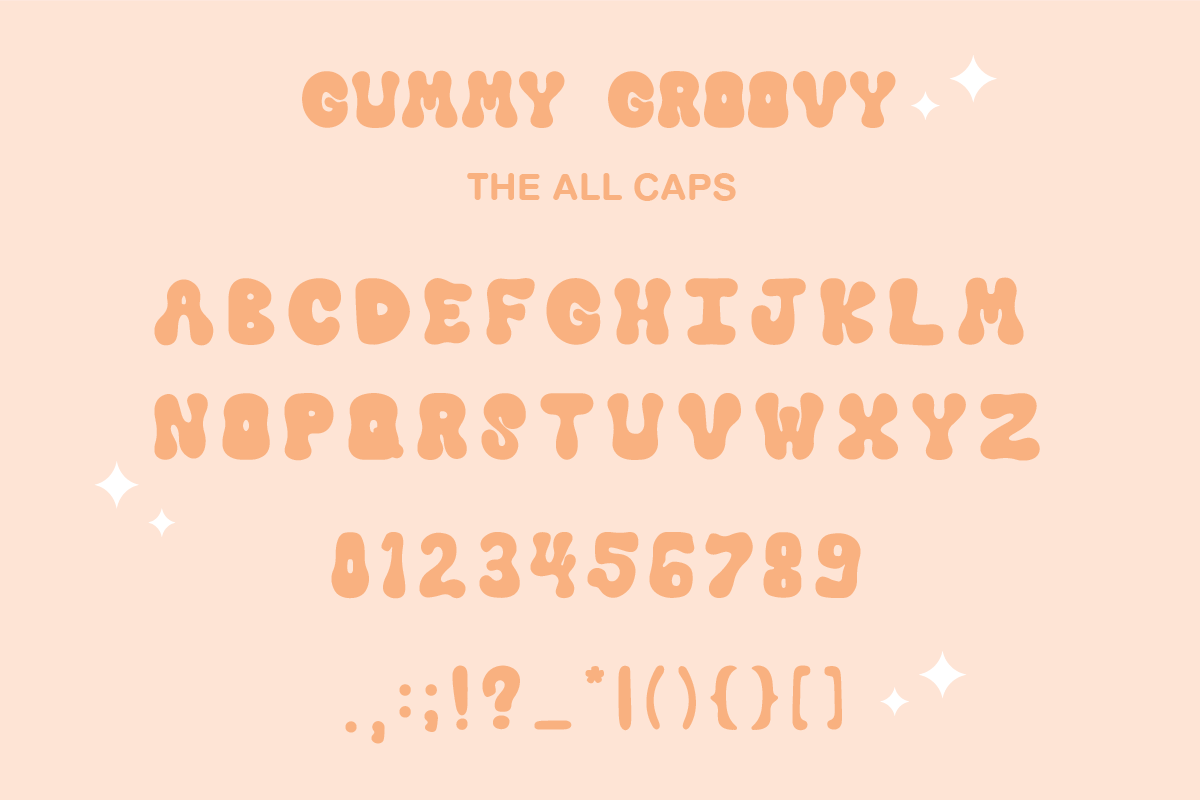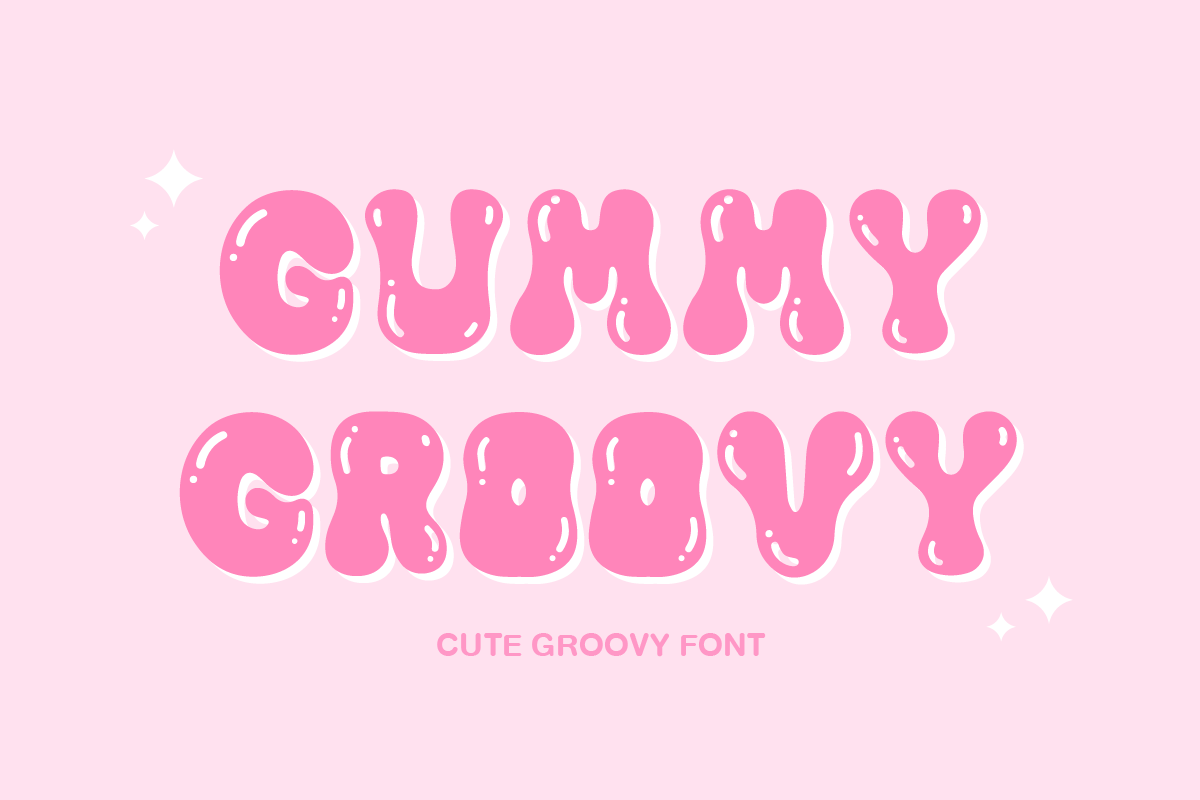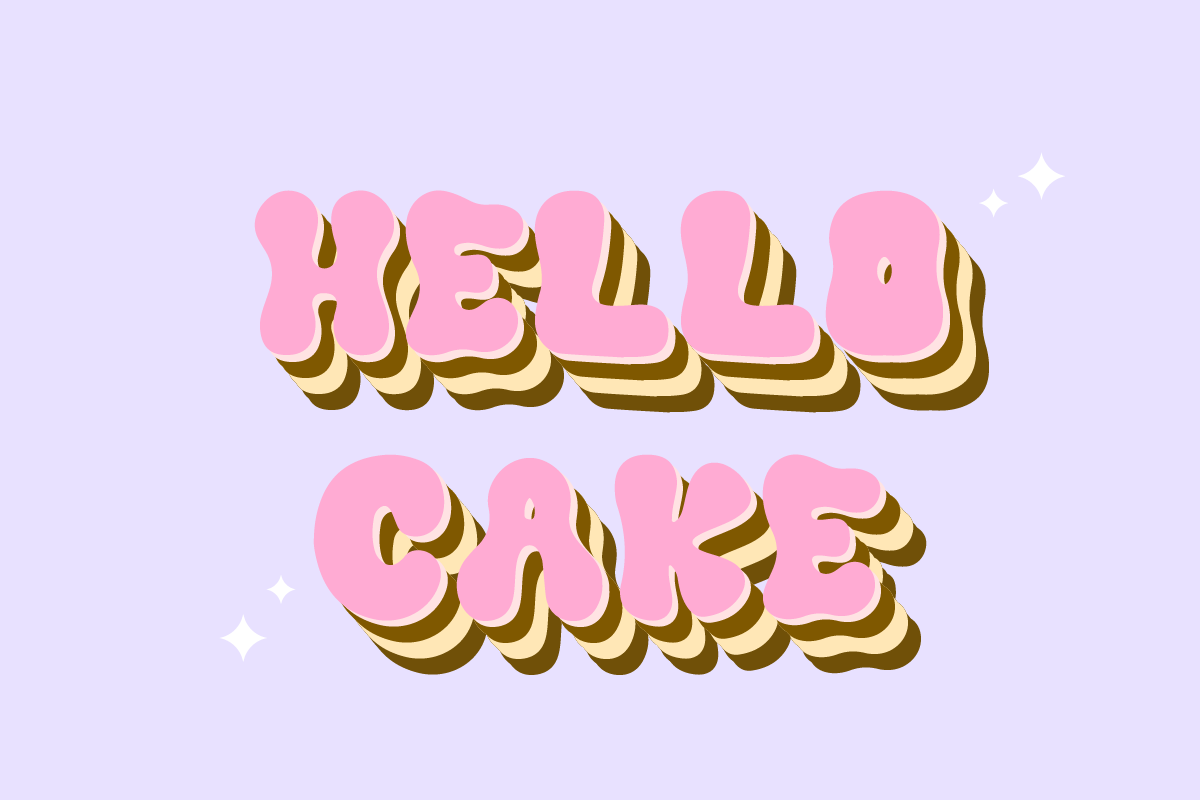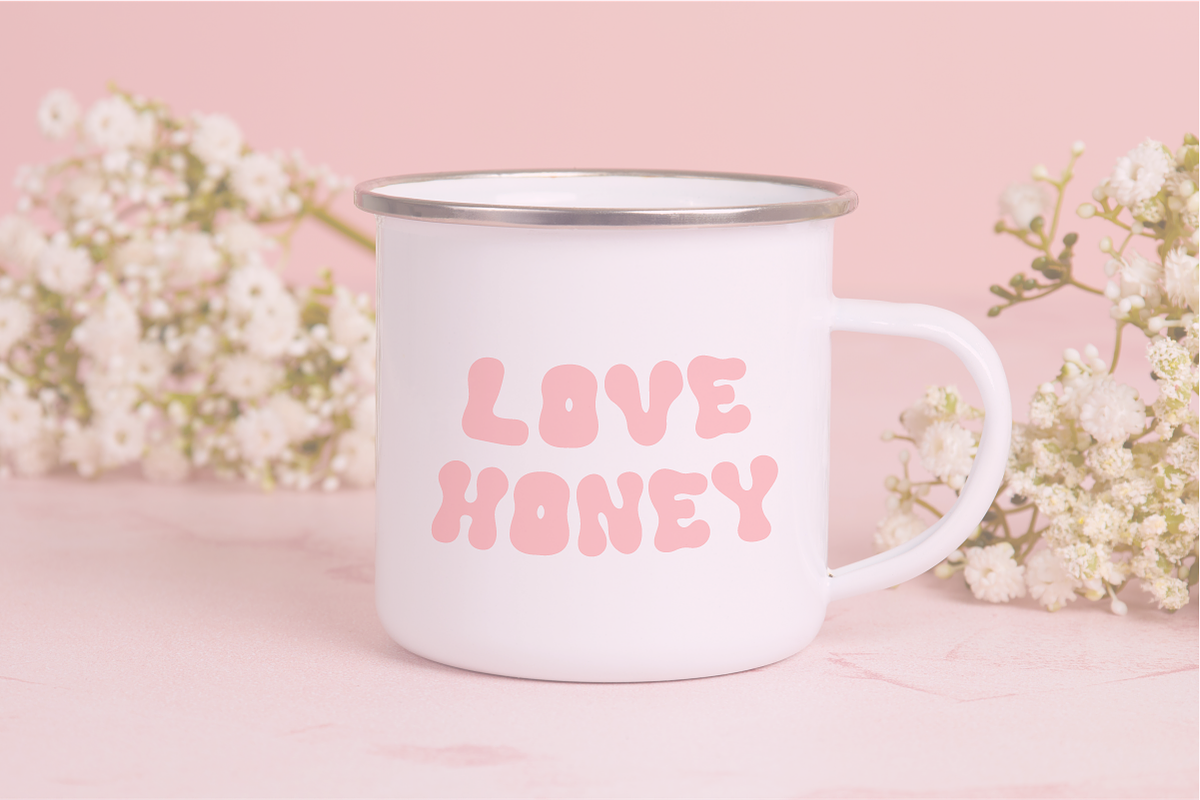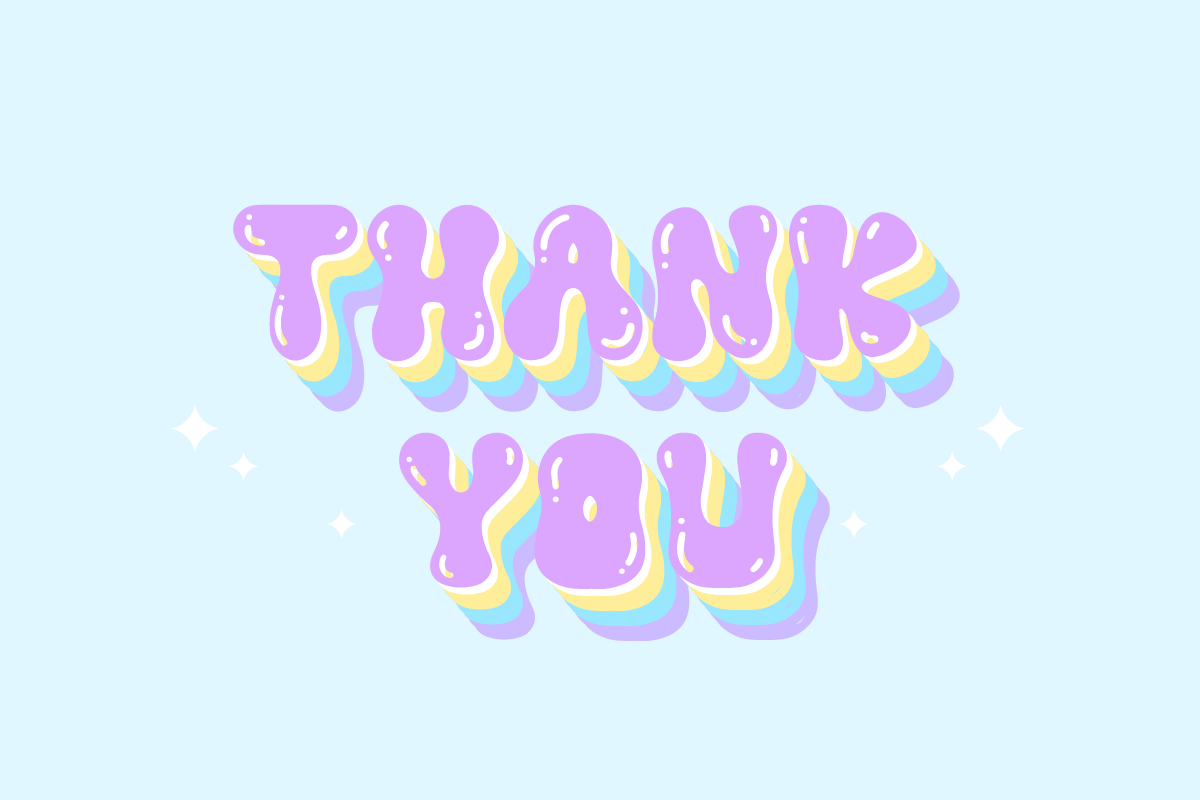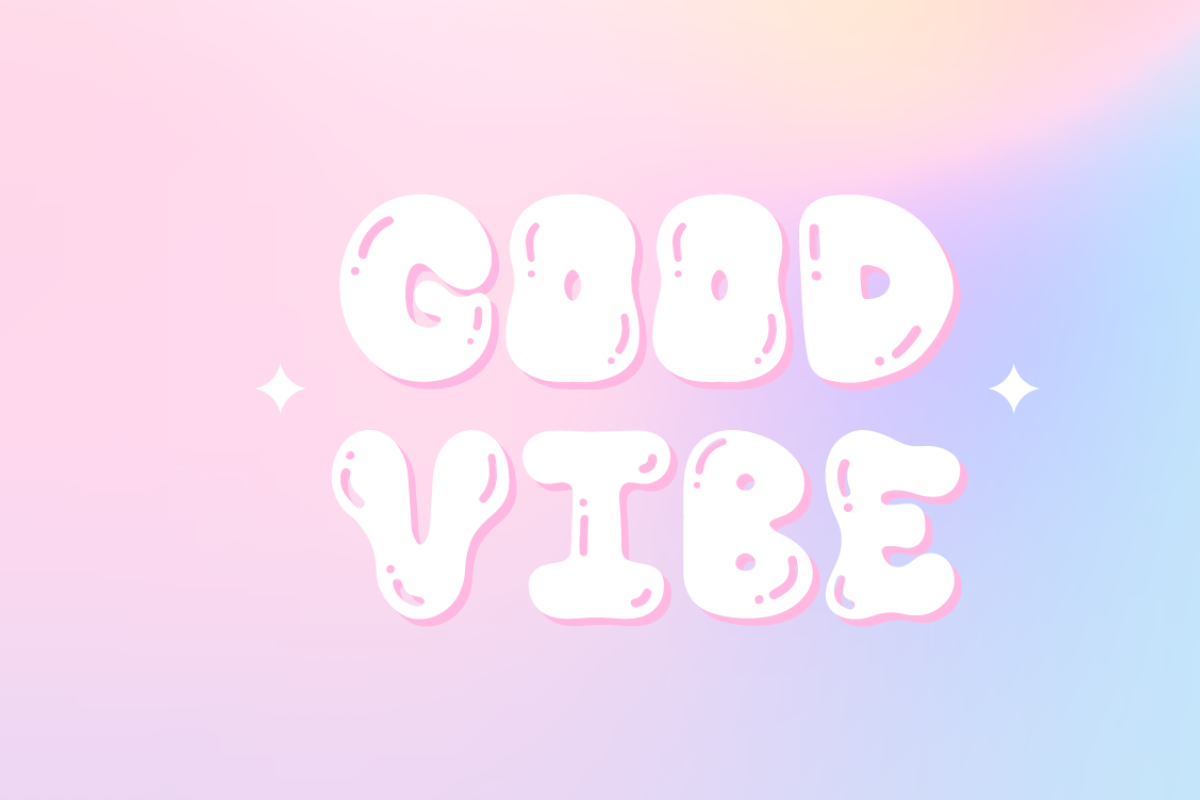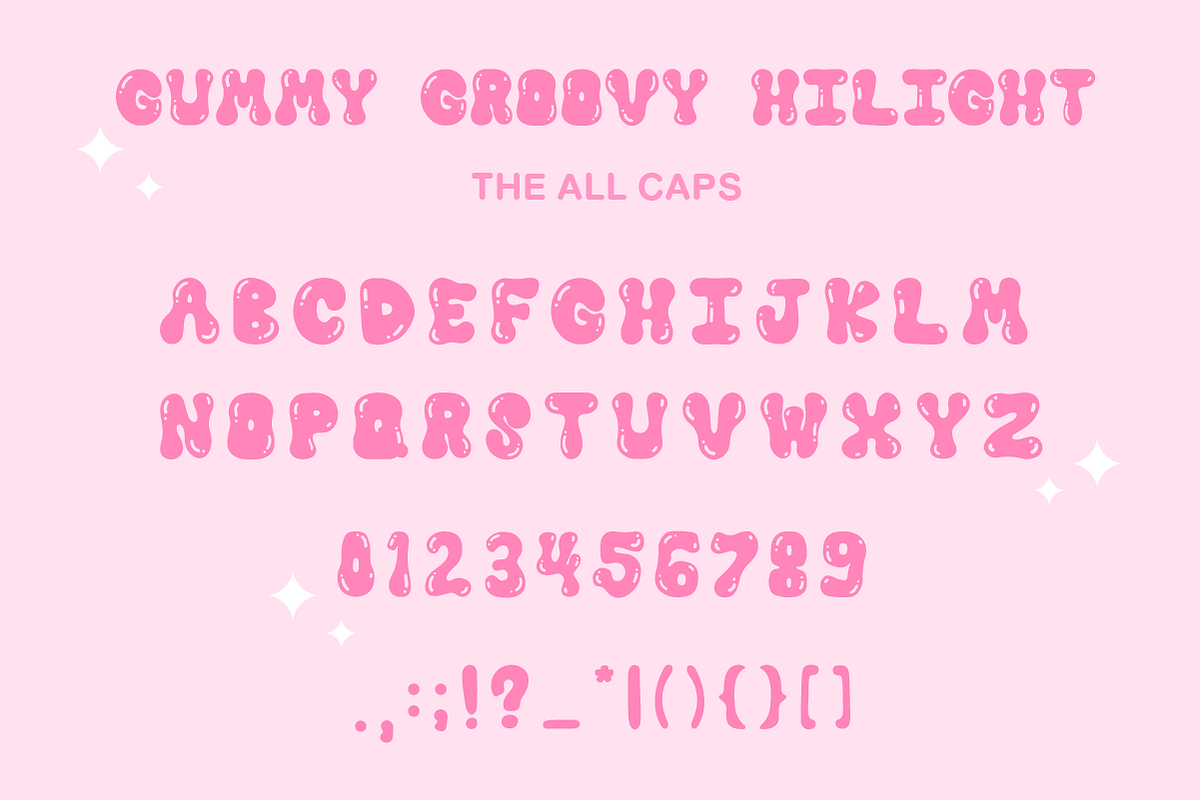
Gummy - Cute Groovy Font Duo
Gummy groovy is a decorative and handwritten font that features a cute retro design with curved lines. The font has a playful, fun, and unique appearance, making it an excellent choice for creating charming designs.